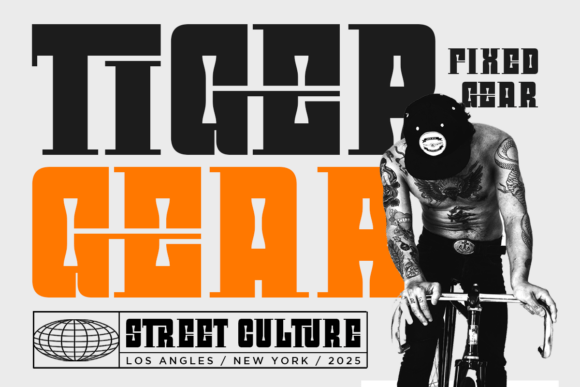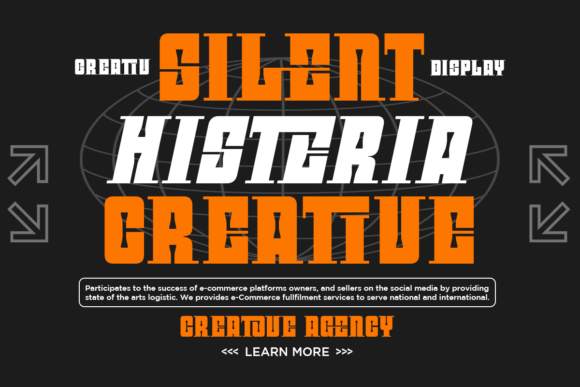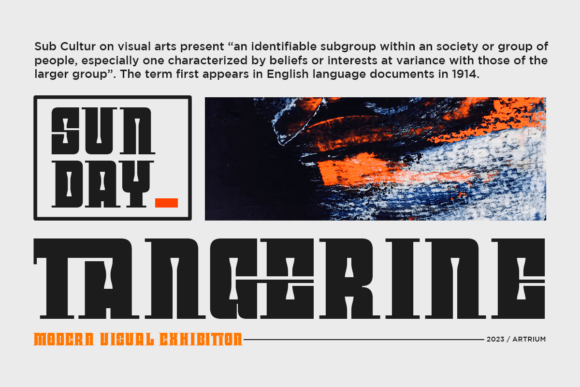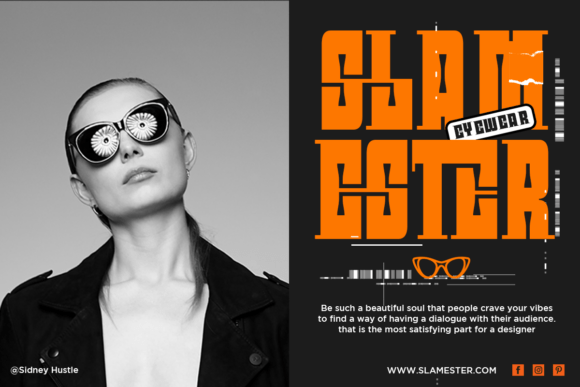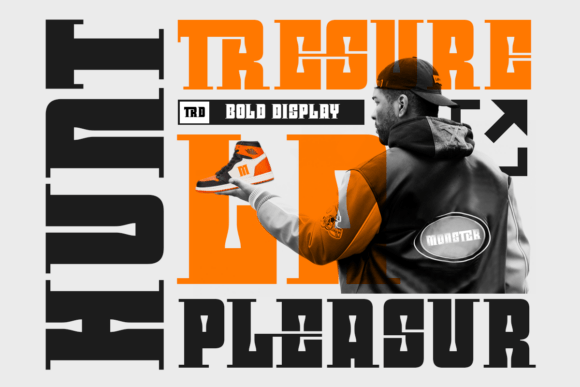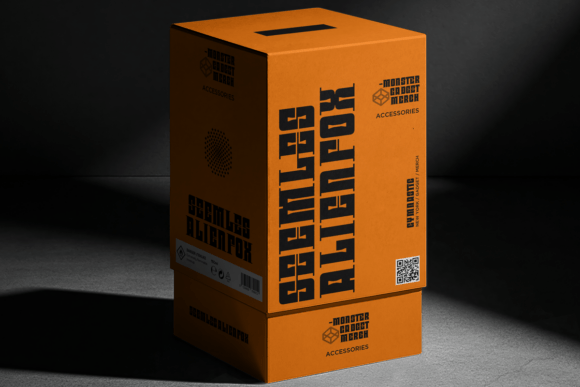
Introduction to Monteba Font Font
Fonts play a crucial role in design, and the Monteba Font font is a typeface that brings both character and versatility to any project. Whether you’re working on a branding project, a website, or a print design, the Monteba Font font offers a unique style that can elevate your work.
Monteba is a bold display slab serif font built for strong visual impact.
Featuring thick serifs, solid proportions, and confident letterforms, MONTEBA is ideal for headlines, posters, logos, branding, editorial layouts, and professional typography projects Its powerful and structured style delivers a modern yet classic feel, making it perfect for designs that demand strength, clarity, and authority.
Key Features of Monteba Font Font
Why Choose Monteba Font Font?
The Monteba Font font is more than just a typeface – it’s a design tool that helps you communicate your message with style and clarity. Its unique character set and versatile design make it suitable for a wide range of applications, from elegant invitations to bold headlines.
With its carefully crafted letterforms and balanced proportions, the Monteba Font font ensures readability and visual appeal across all mediums.
What makes Monteba Font font special?
The Monteba Font font stands out with its unique design, exceptional readability, and versatility across various design applications.